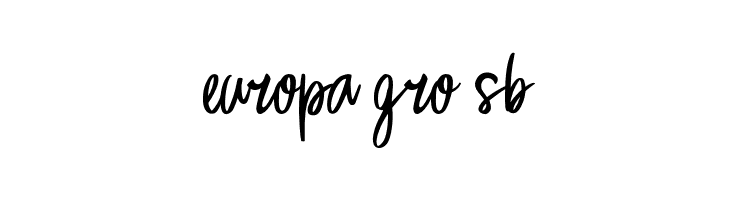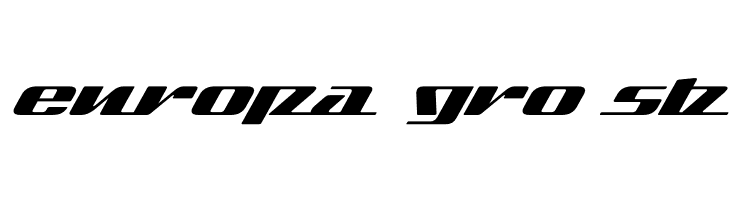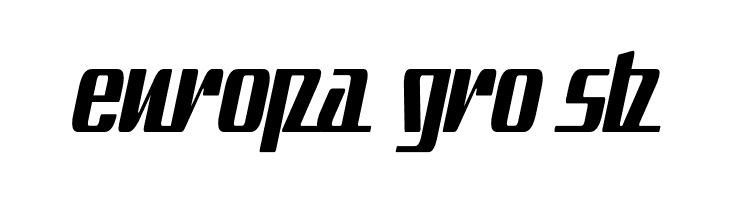
A decorative font with sharp serifs and intricate detailing, blending modern and elegant styles.
A bold, futuristic font with angular, slanted characters and a unique cut-through line.
A bold, modern font with a slanted, dynamic style and unique cut-through lines.
A dynamic, italicized font with a modern, speedy aesthetic.
A dynamic, futuristic font with sharp, angular lines and a slanted orientation.
An artistic and decorative font with intricate letterforms and a calligraphic influence.
A bold, decorative font with circular cutouts for a playful look.
A bold, sans-serif font with a shaded, three-dimensional effect.
A dynamic, handwritten font with expressive strokes and a casual aesthetic.
A lively, handwritten font with bold, cursive letterforms.